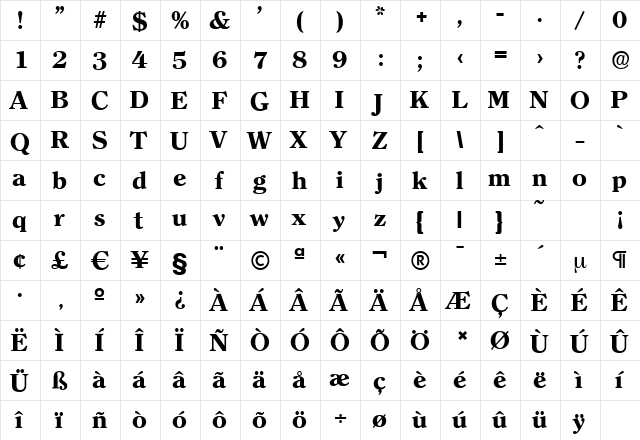
ClearfaceSerial-Xbold Regular
Design Context for ClearfaceSerial-Xbold Typeface
ClearfaceSerial-Xbold is a composed and adaptable typeface that performs quietly and consistently across a wide range of design contexts. The heavy weight commands attention and anchors typographic hierarchies.